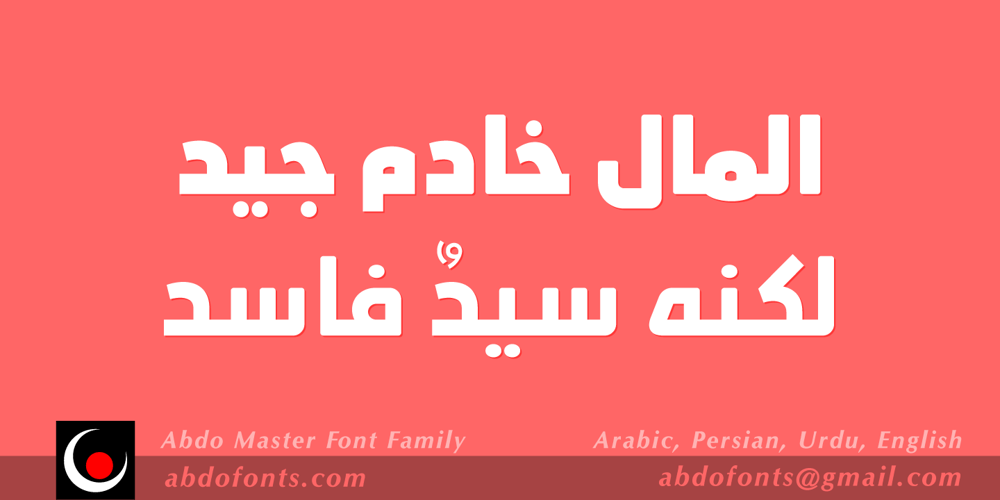
Abdo Master Font Family was designed by Abdulsamie Rajab Salem and published by Abdo Fonts. Abdo Master contains 14 styles and family package options. Abdo Master is a geometrical style. This is an OpenType Font supporting Arabic, Persian, Urdu, and English. The combination of modern Kufi and Geometrical styles and varying between straight and curved parts made it a beautiful typeface appropriate to the titles and text, and able to meet the desire of the user in the design of ads and modern designs of various types of audio and visual. it comes in fourteen weights from Thin to Black and Outline style.